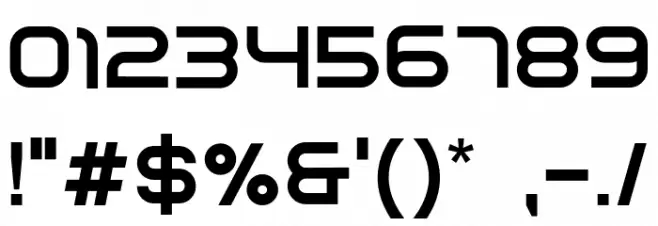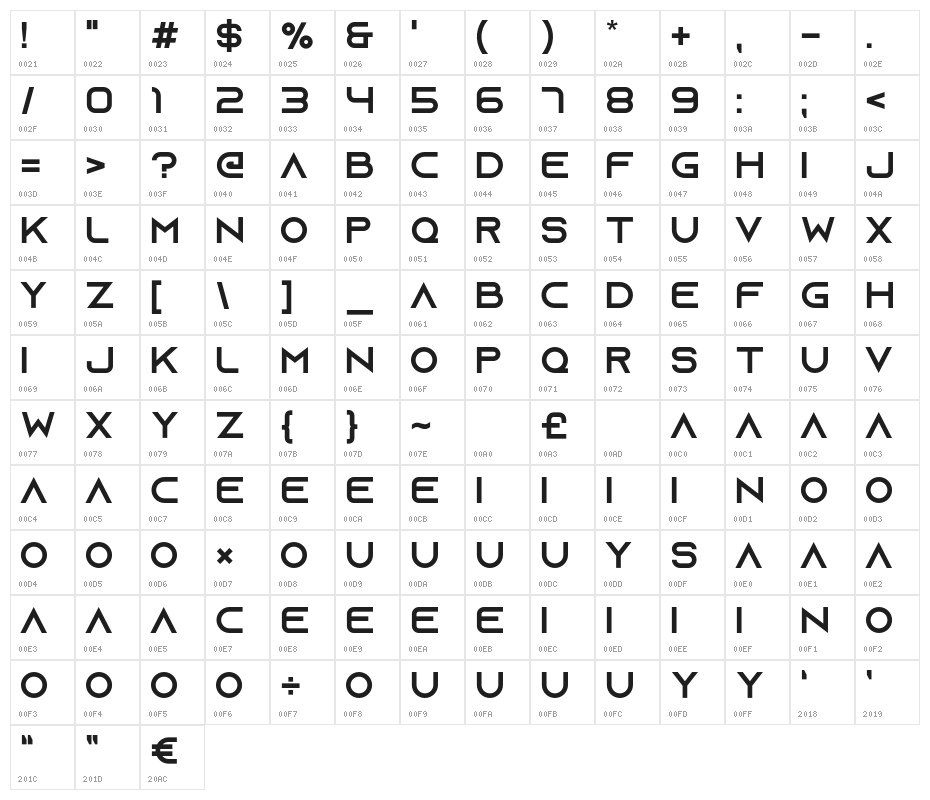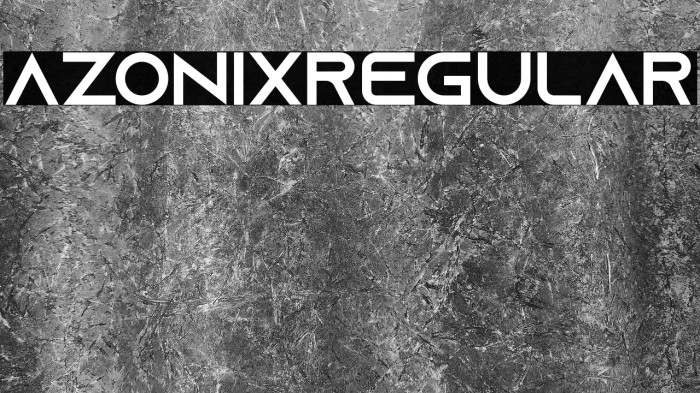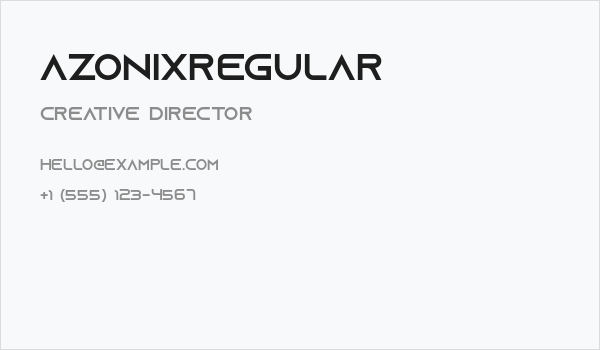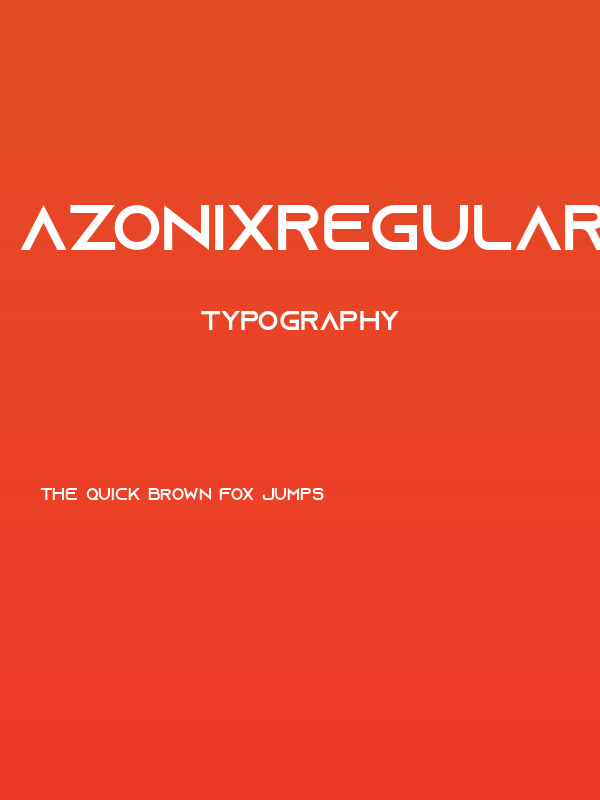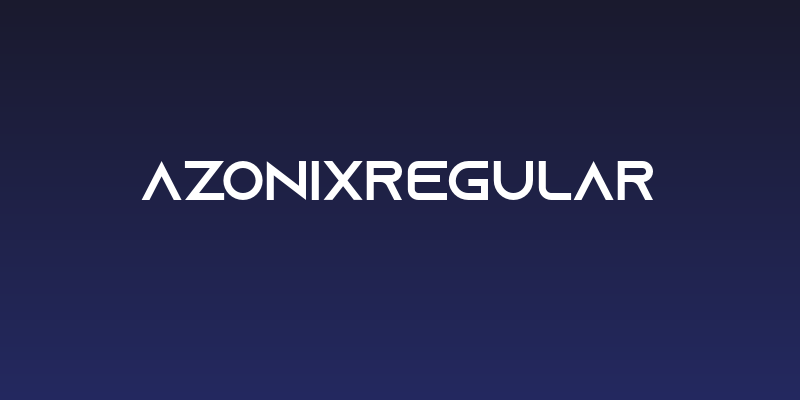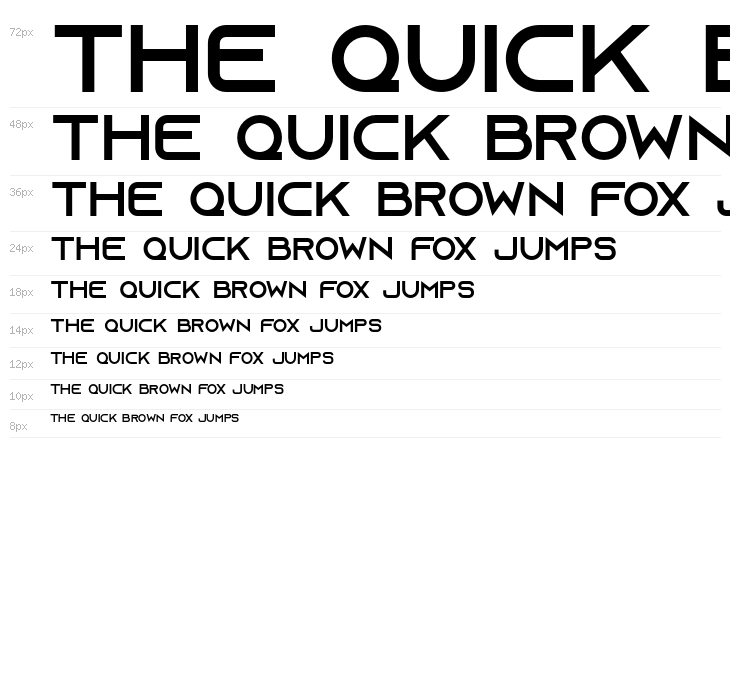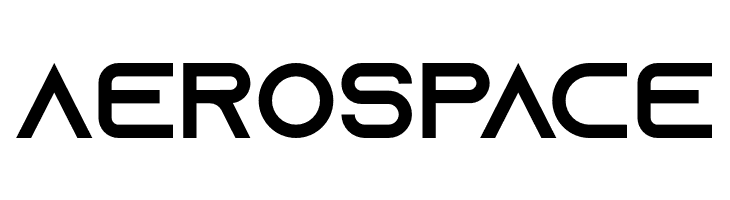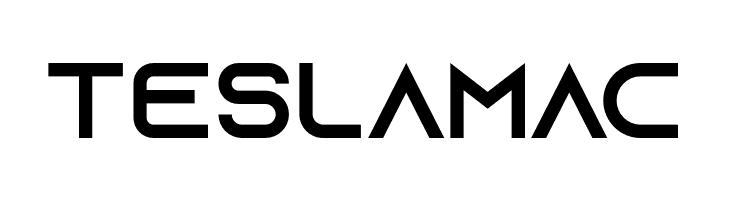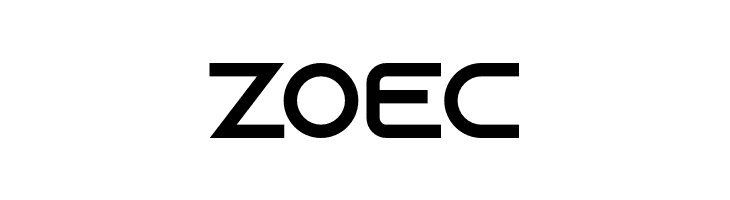
AzonixRegular Font
AzonixRegular Description
This font features a geometric and modern design with clean, sharp lines and a futuristic aesthetic. The characters are constructed with a uniform stroke width, giving it a sleek and cohesive appearance. The uppercase letters are bold and prominent, while the lowercase letters maintain a consistent style that complements the uppercase. The numerals are distinct and easily readable, matching the overall geometric theme. Special characters are included, maintaining the same design principles, ensuring versatility across various applications. The font's style is ideal for projects that require a contemporary and tech-savvy look.
Use CaseHeadlines, Logos, Digital Interfaces
Proposed ProjectsIdeal for technology branding, modern websites, digital interfaces, and futuristic-themed designs.